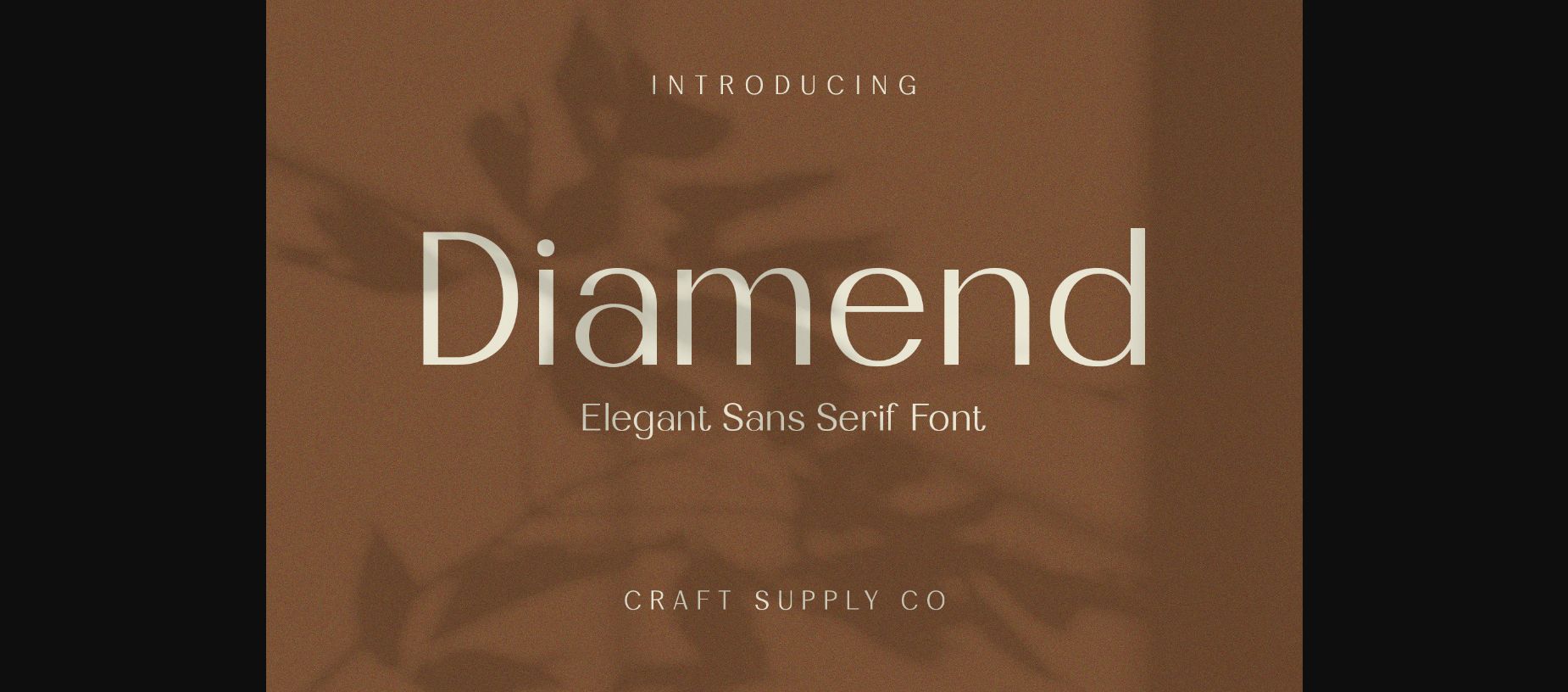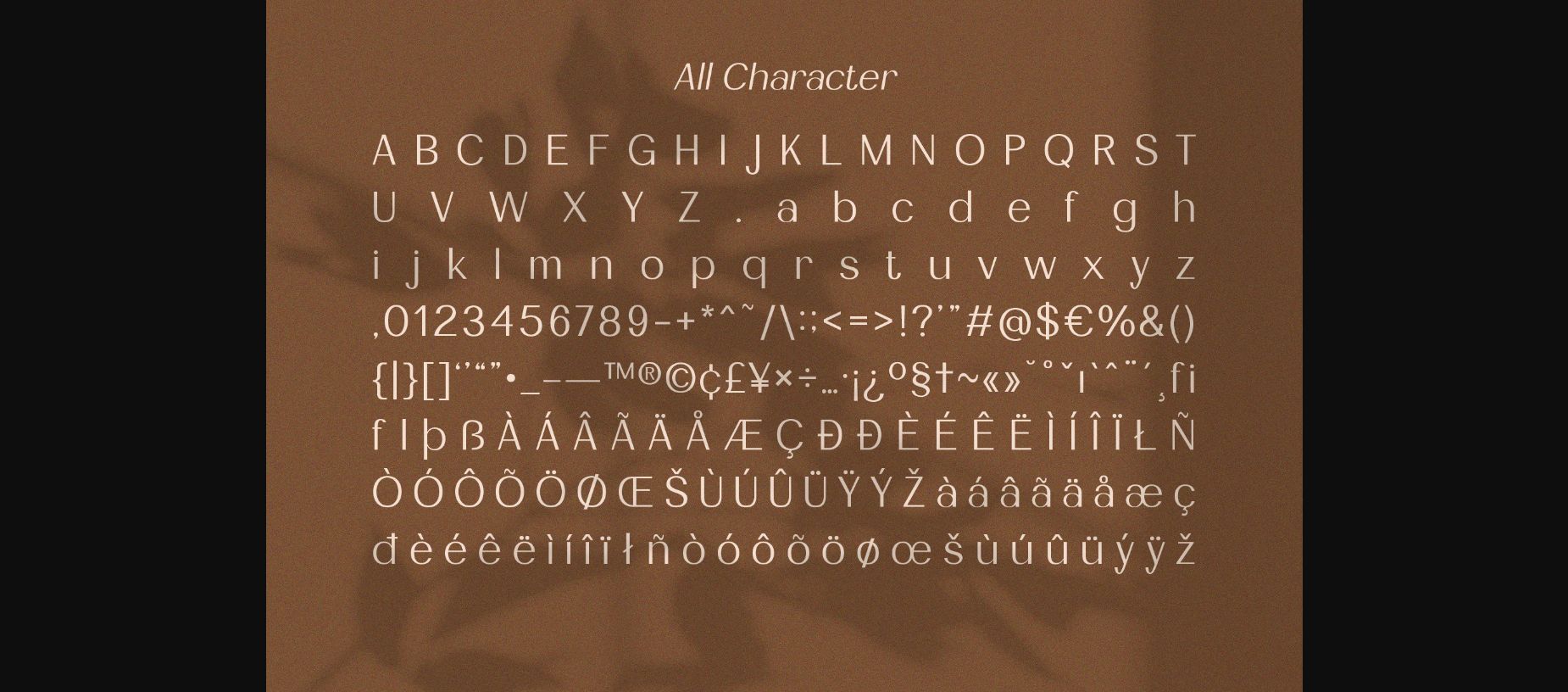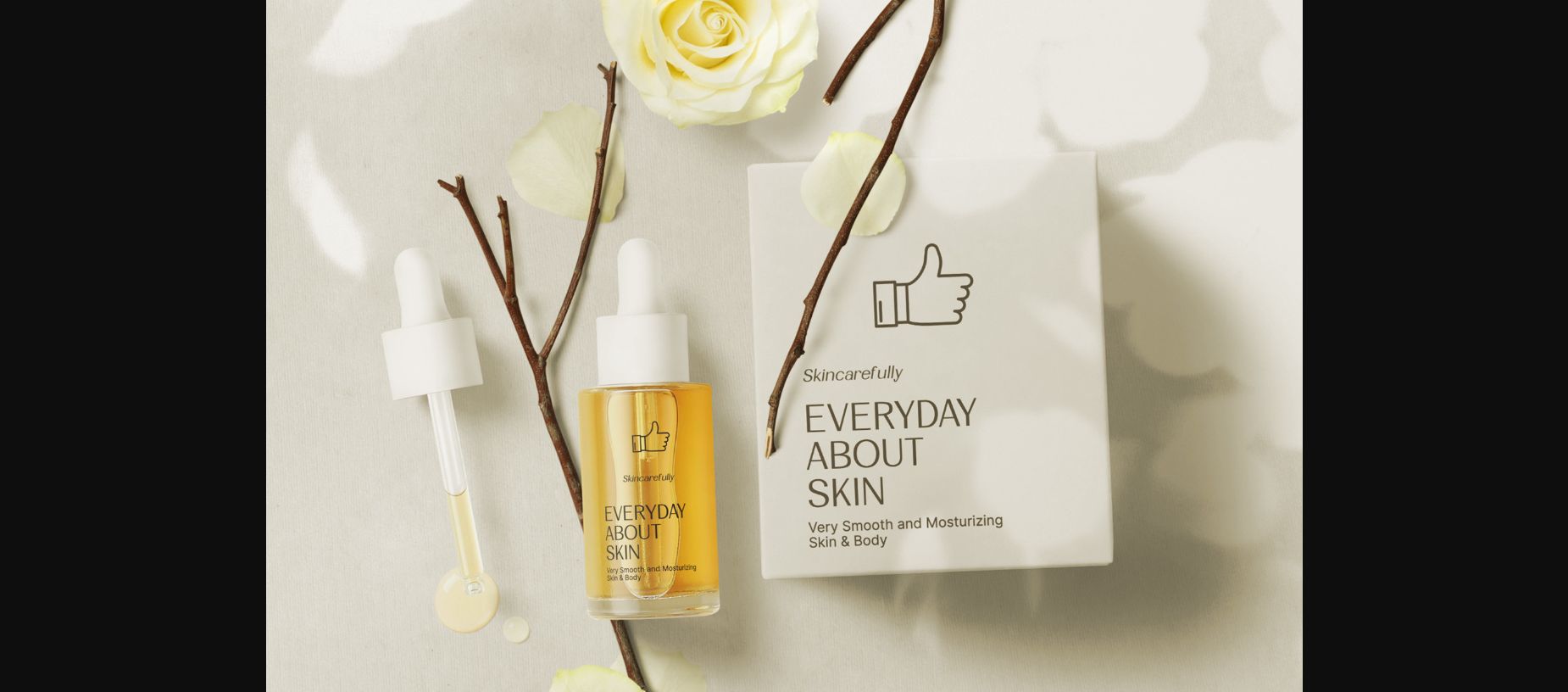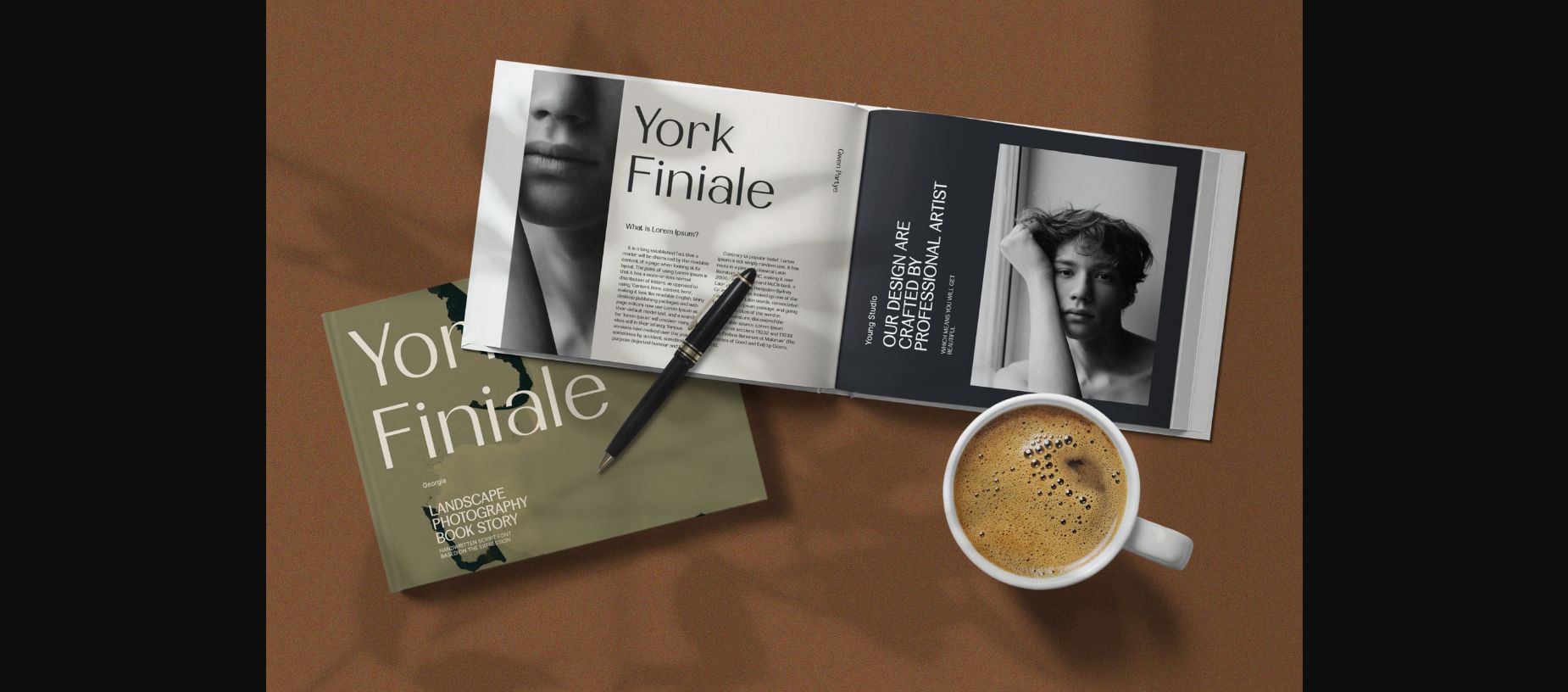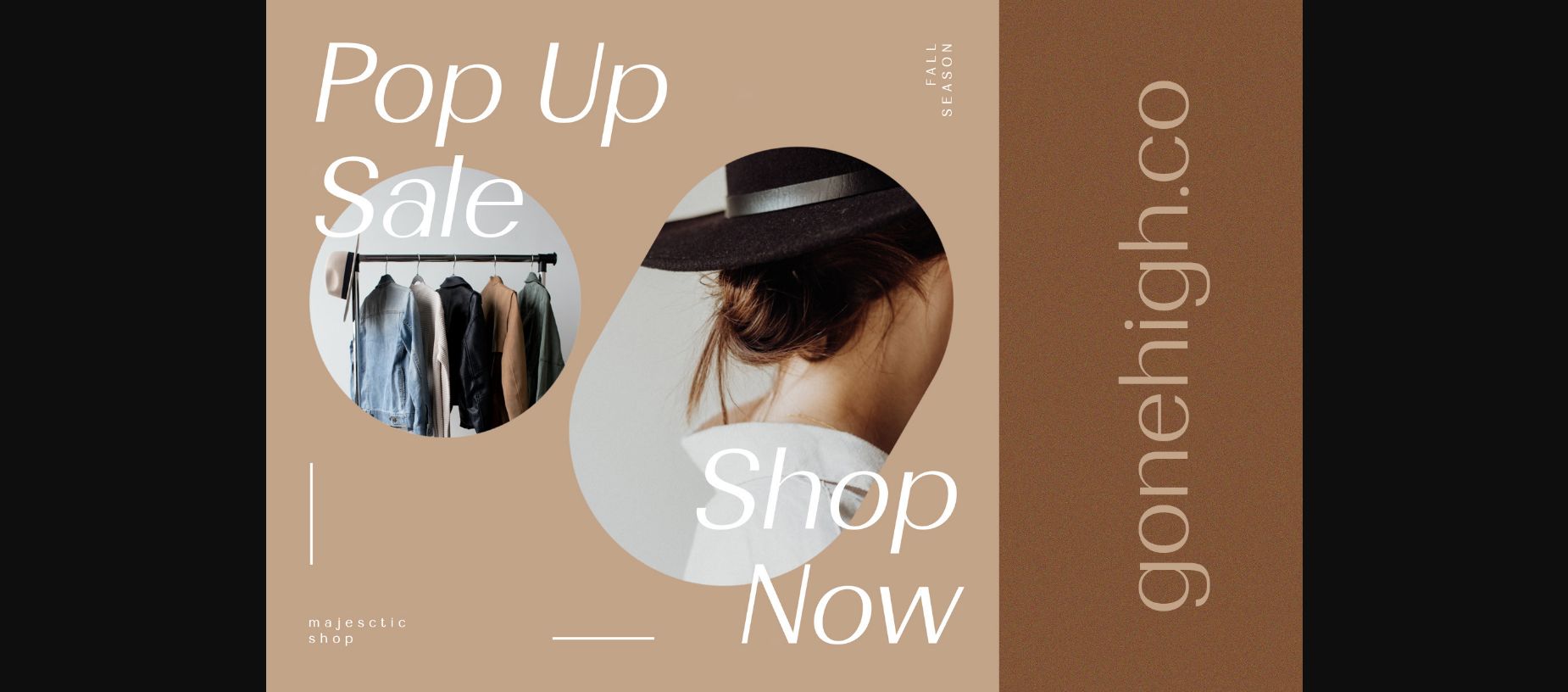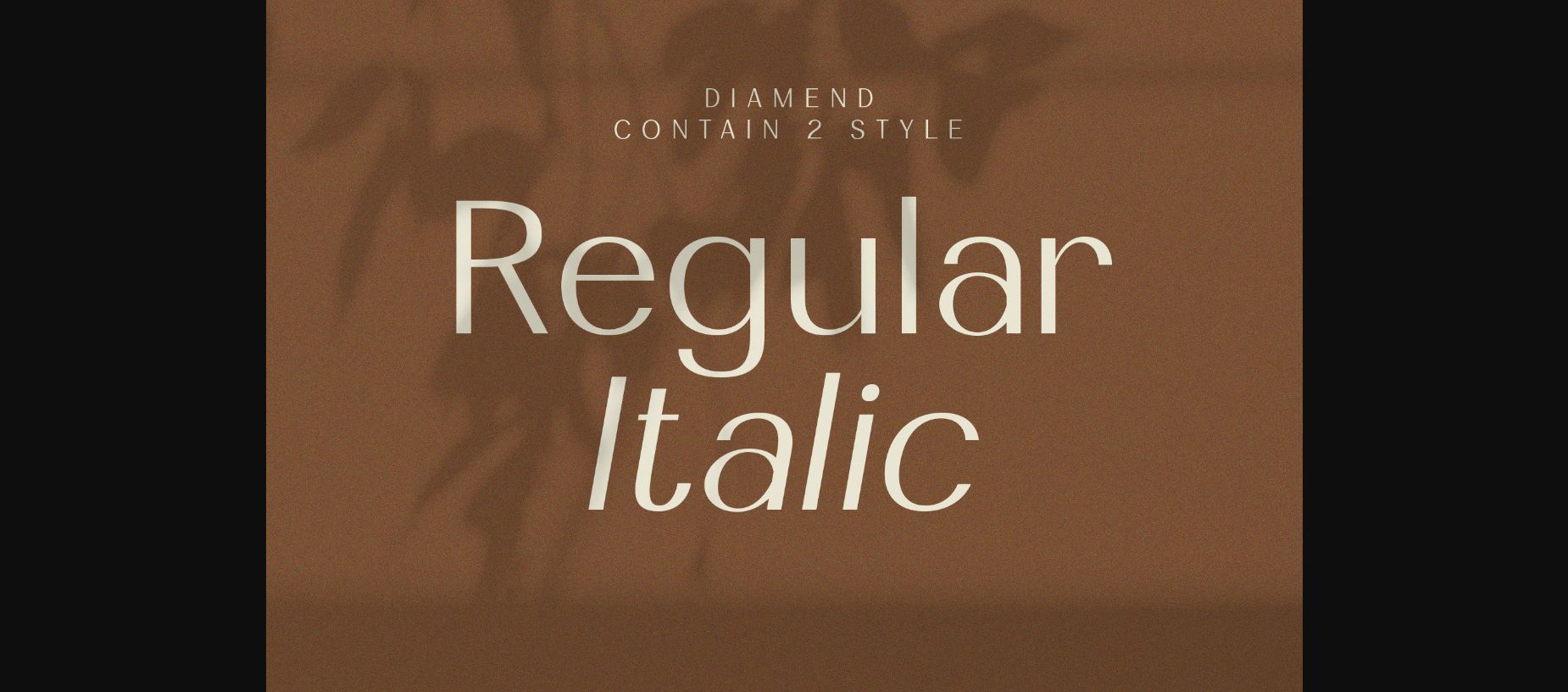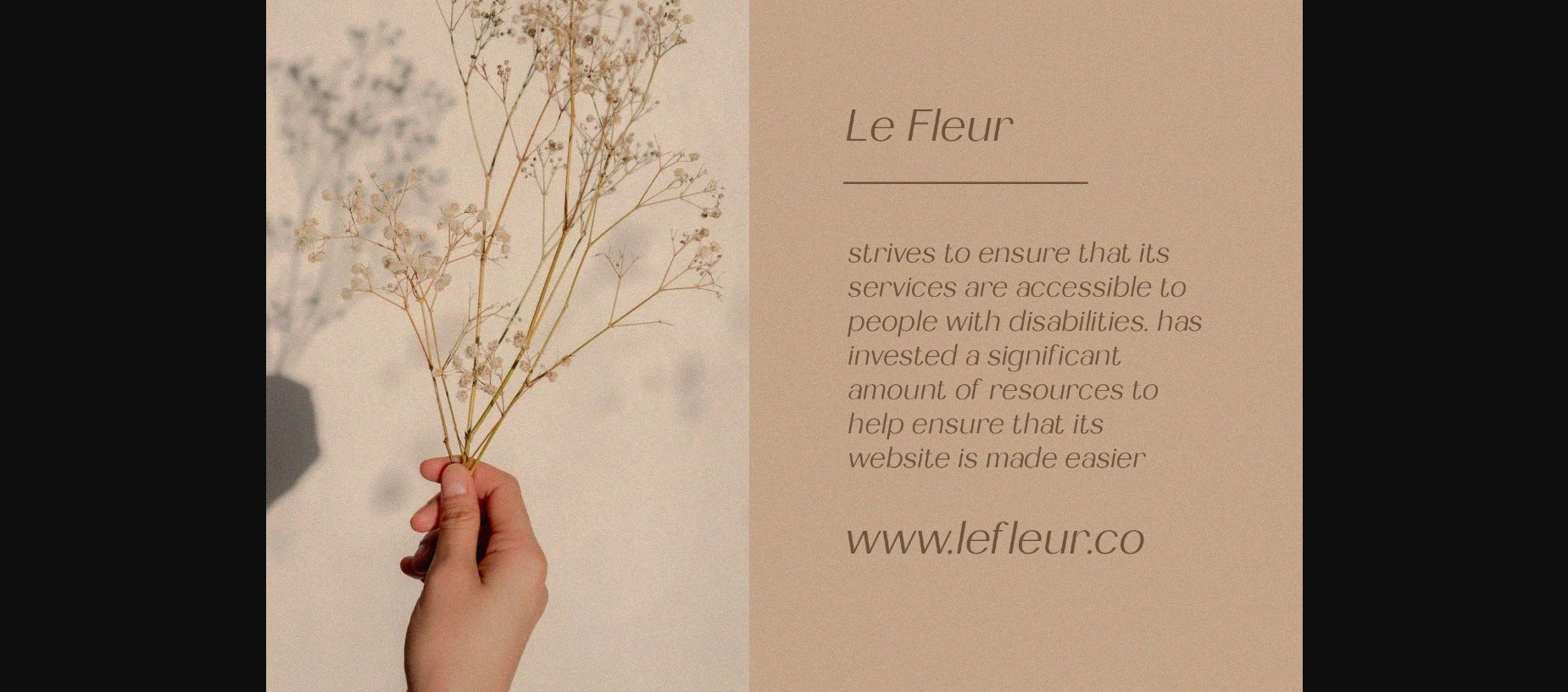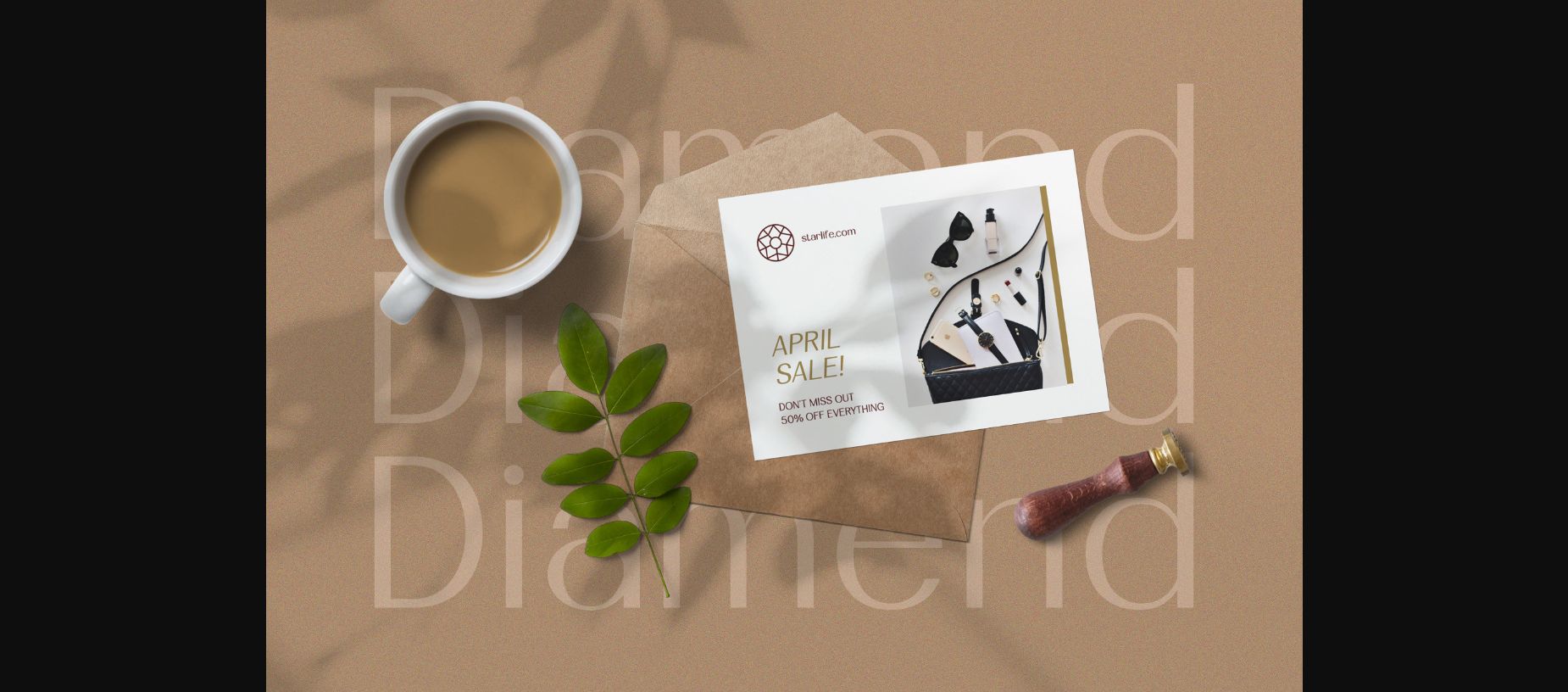
About Diamend Font
Diamend is an elegant sans-serif font that merges modernity with sophistication. Its sleek lines and refined aura are ideal for infusing projects with a touch of timeless class. Elevate your designs with Diamend’s exquisite charm and open the door to a world of creative possibilities.
This typeface is ideal for greeting card, packaging, brand identity, poster, or any purpose to make your design project look eye catching and trendy. Feel free to play with this typeface!